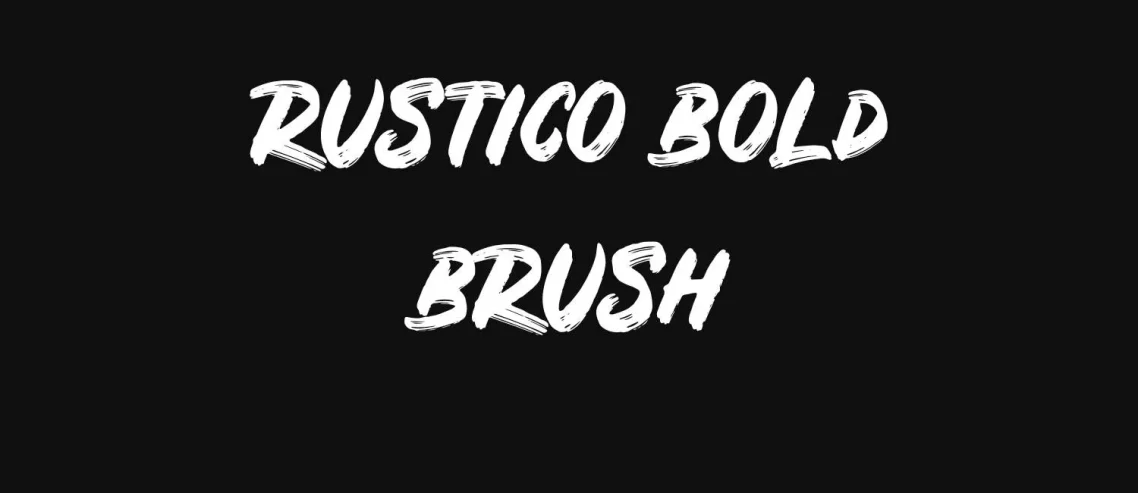
Rustico Bold Brush Font is a bold and textured typeface that simulates the look of hand-painted brush strokes. This font is commonly used in designs that seek a rugged and artistic feel, such as posters, packaging, or any project where a bold and expressive brush script is desired.
Rustico Bold Brush Font adds a touch of authenticity and creativity to your text, creating a visually striking and dynamic impact.
Name | Rustico Bold Brush Font |
Designer | Hustle Supply Co |
Style | Brush |